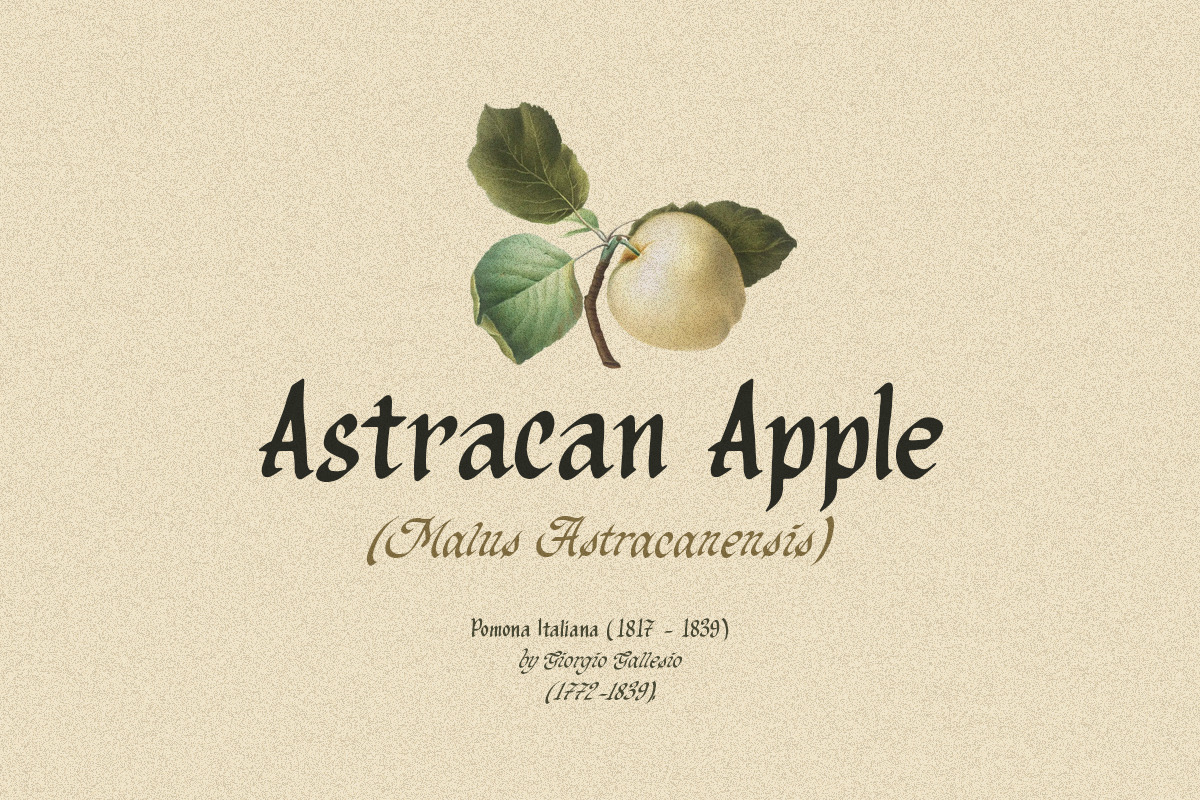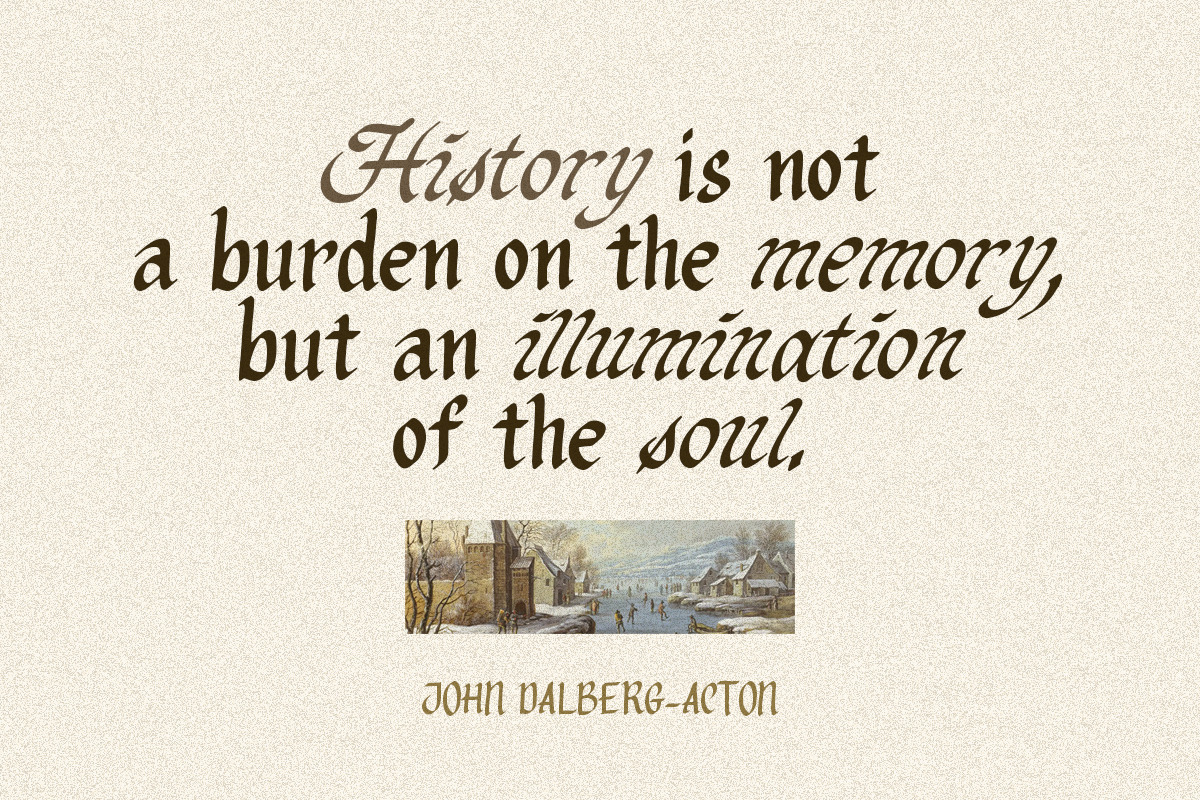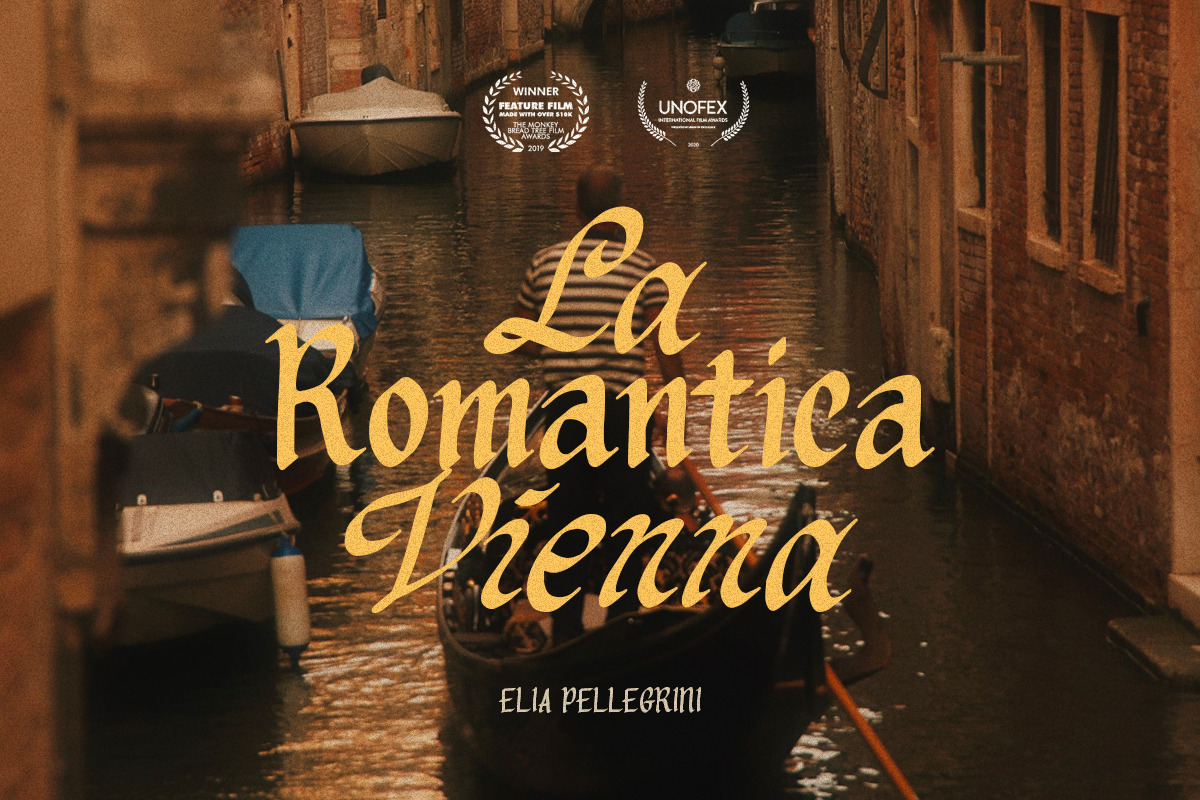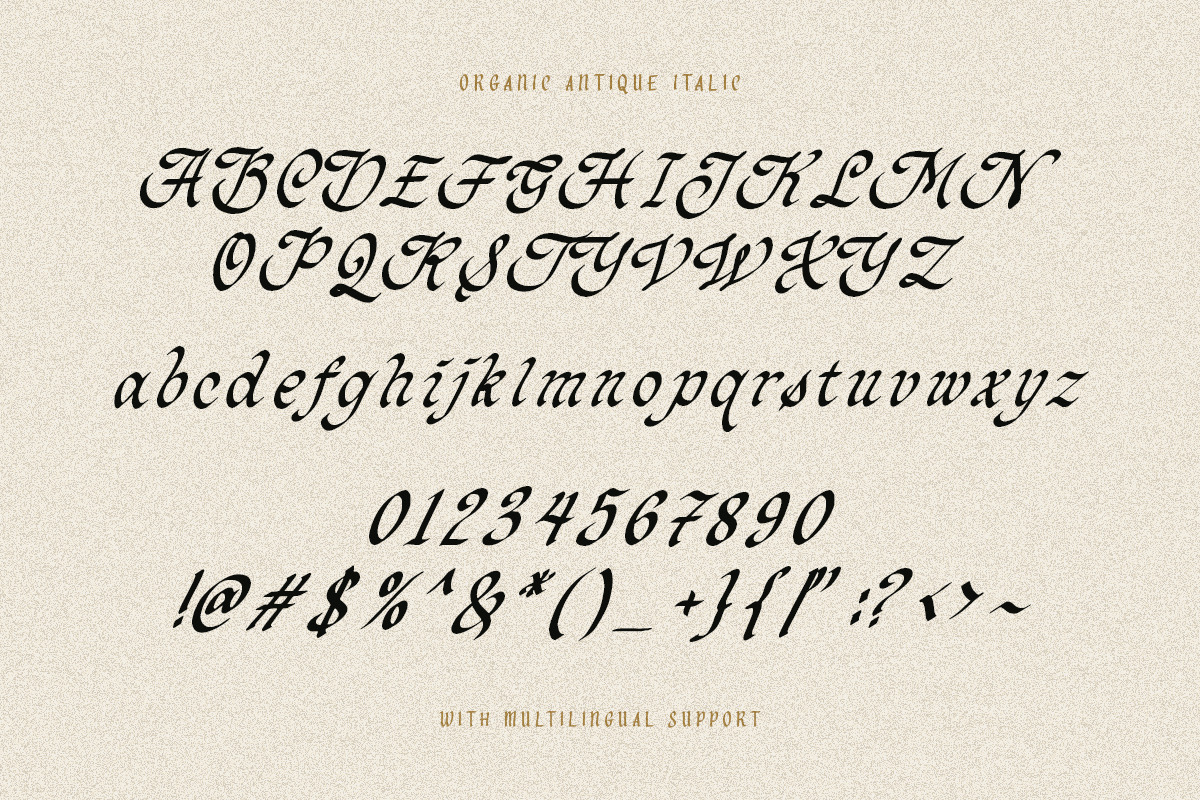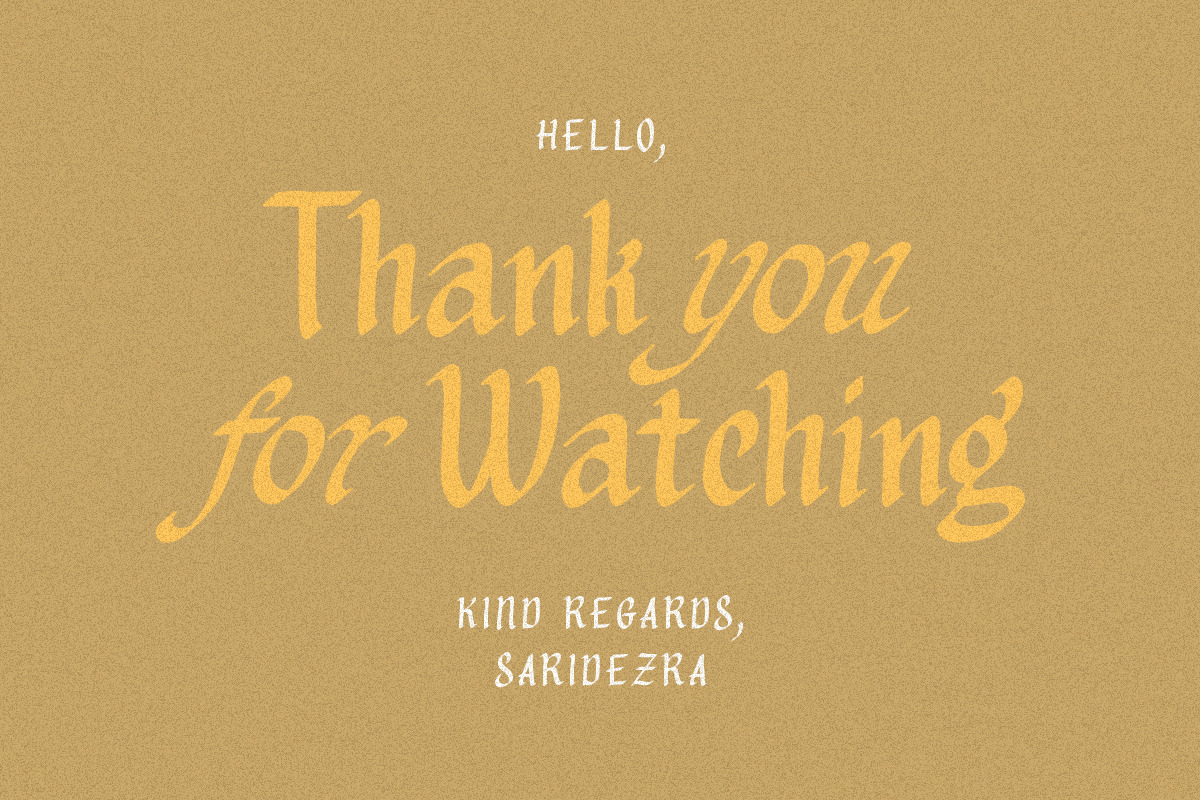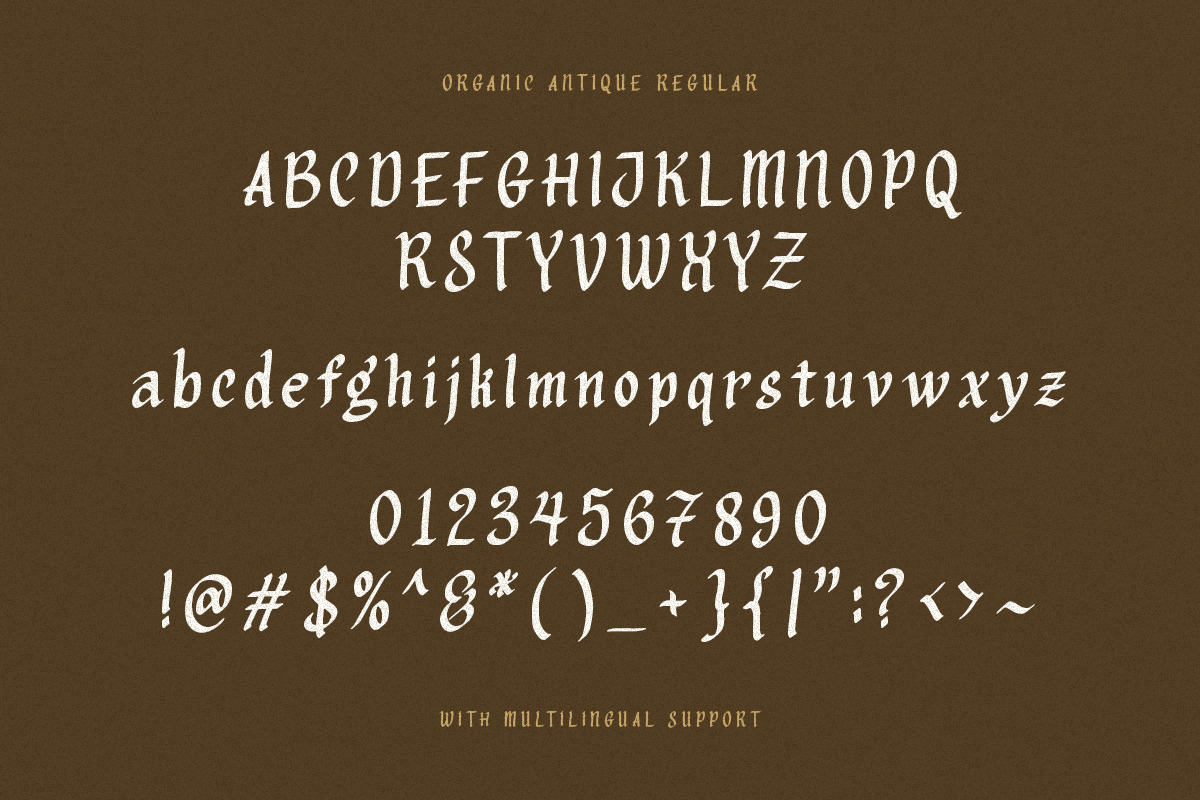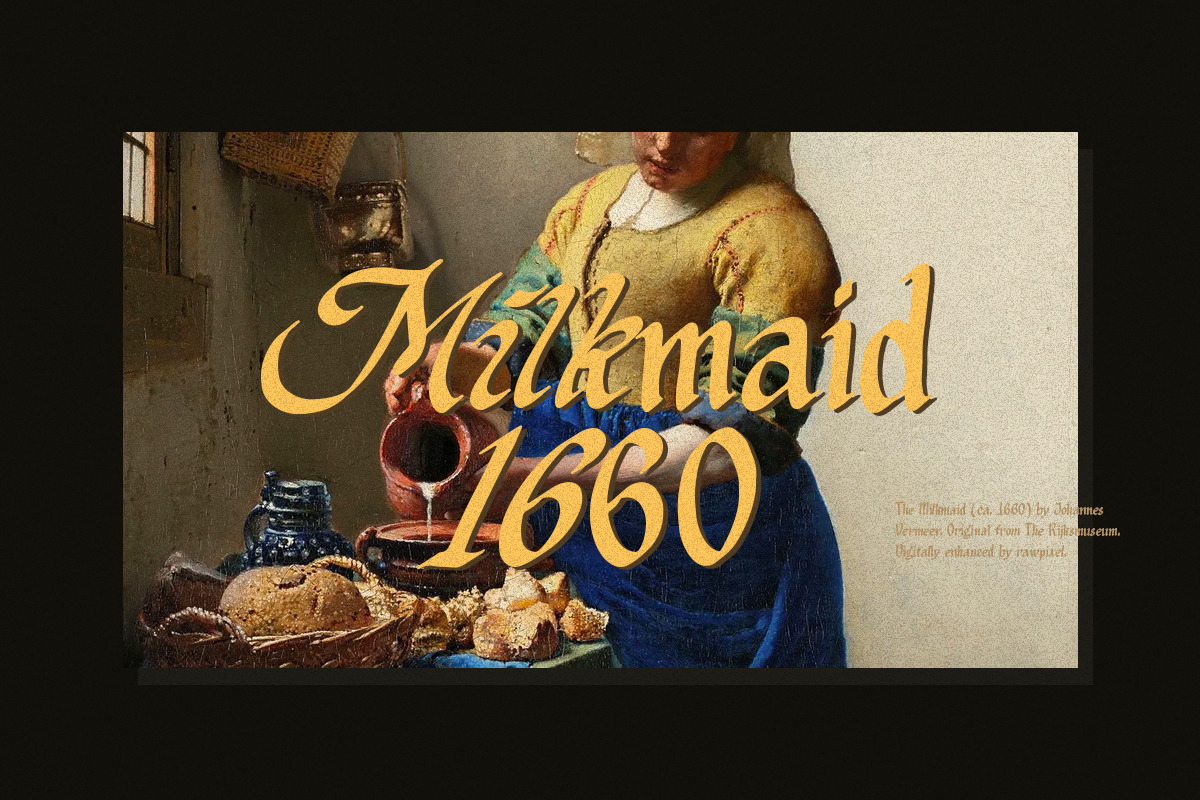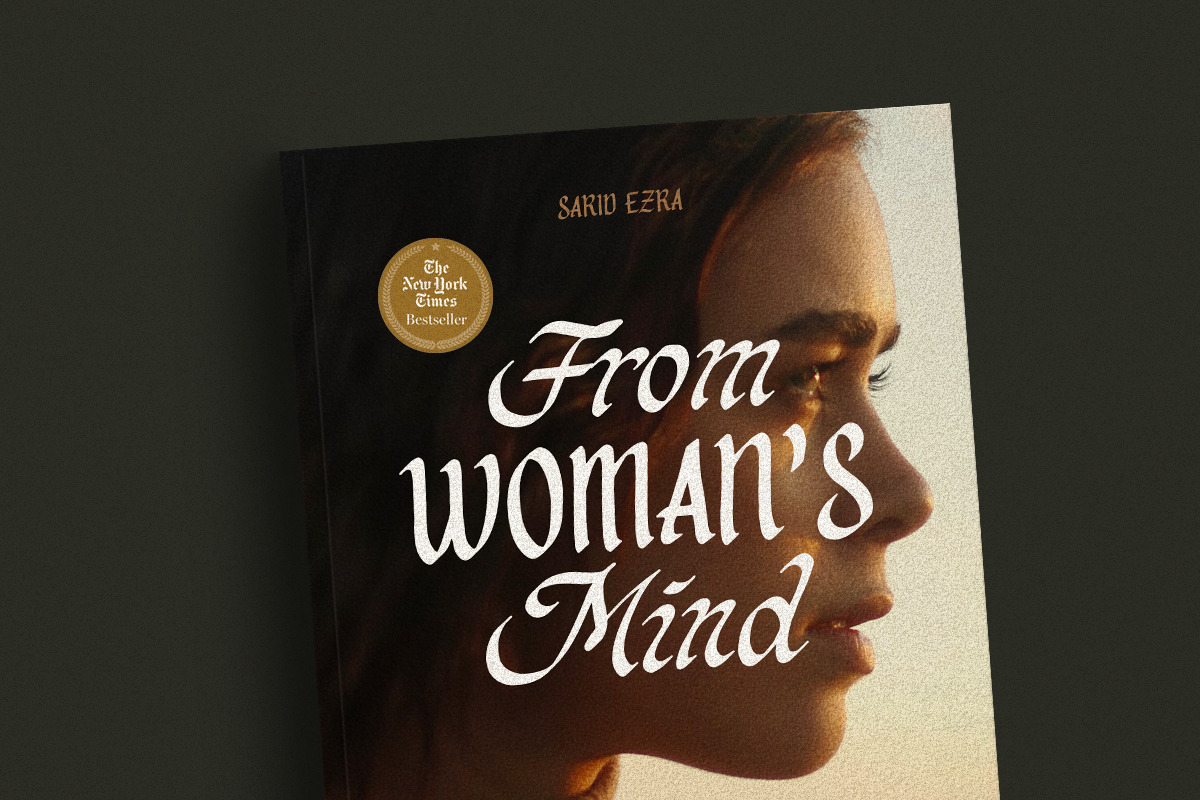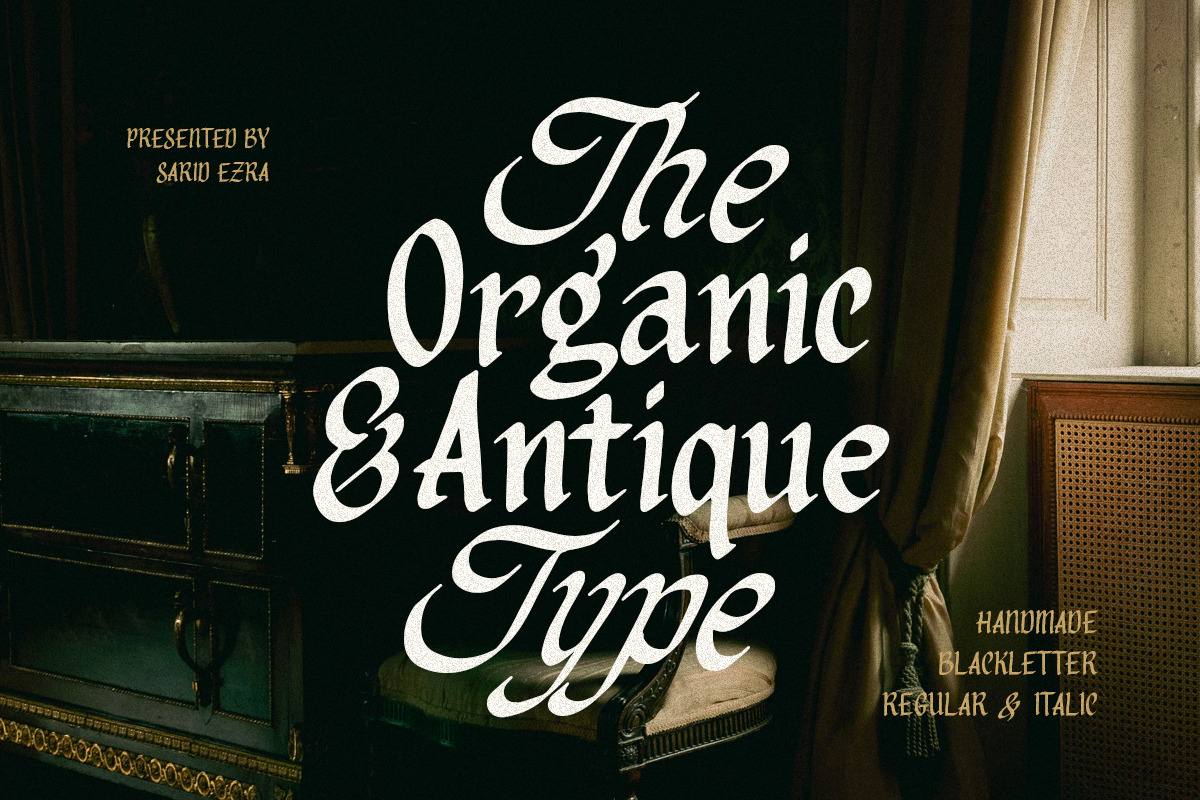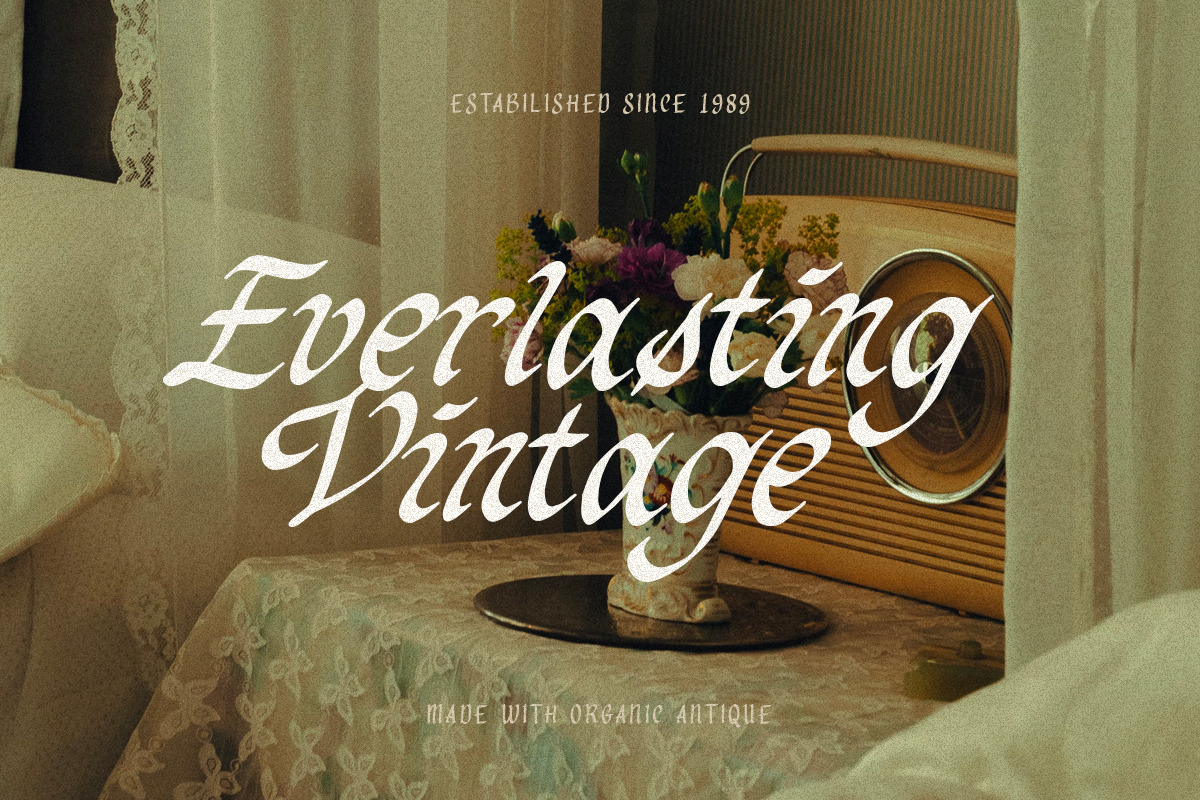
Organic Antique - Blackletter Fonts
Introducing, Organic Antique, Handmade Blackletter Fonts
Organic Antique is blackletter fonts with organic and handmade feels. Containing two styles, regular and true italic, will make your presentations more standout when you use both of the styles. With classic and vintage vibes, you can use this fonts for logotype, quotes, branding, or even movie poster. The hand lettered and rough of this fonts will also make your designs have more stunning and earthy. This fonts also support multi language!